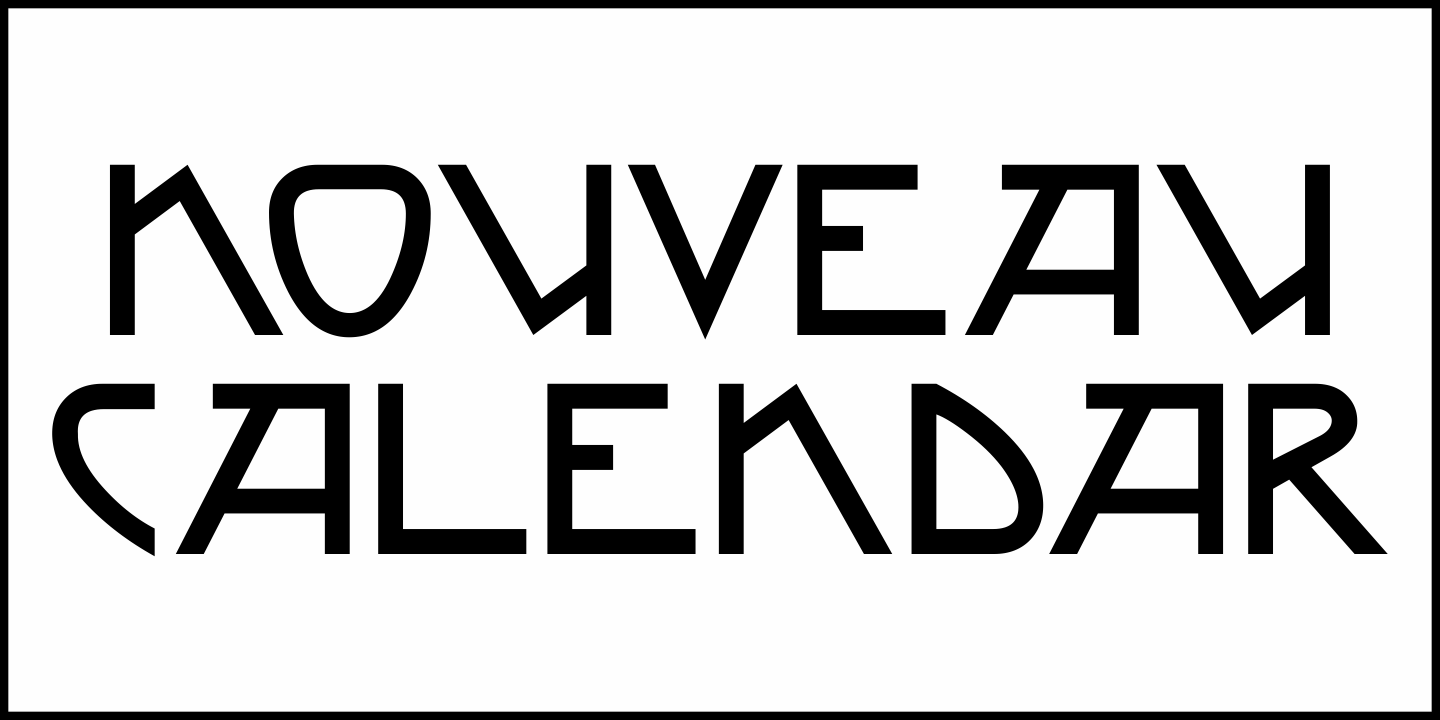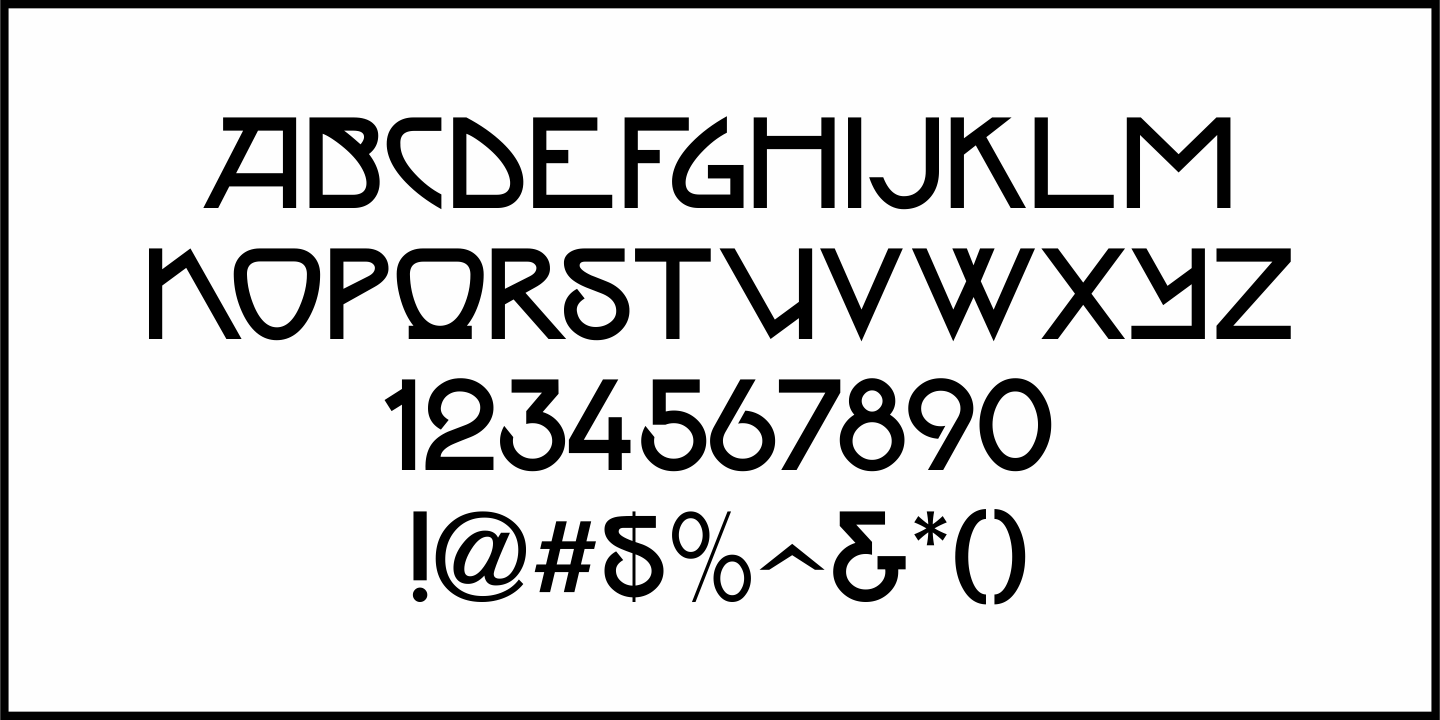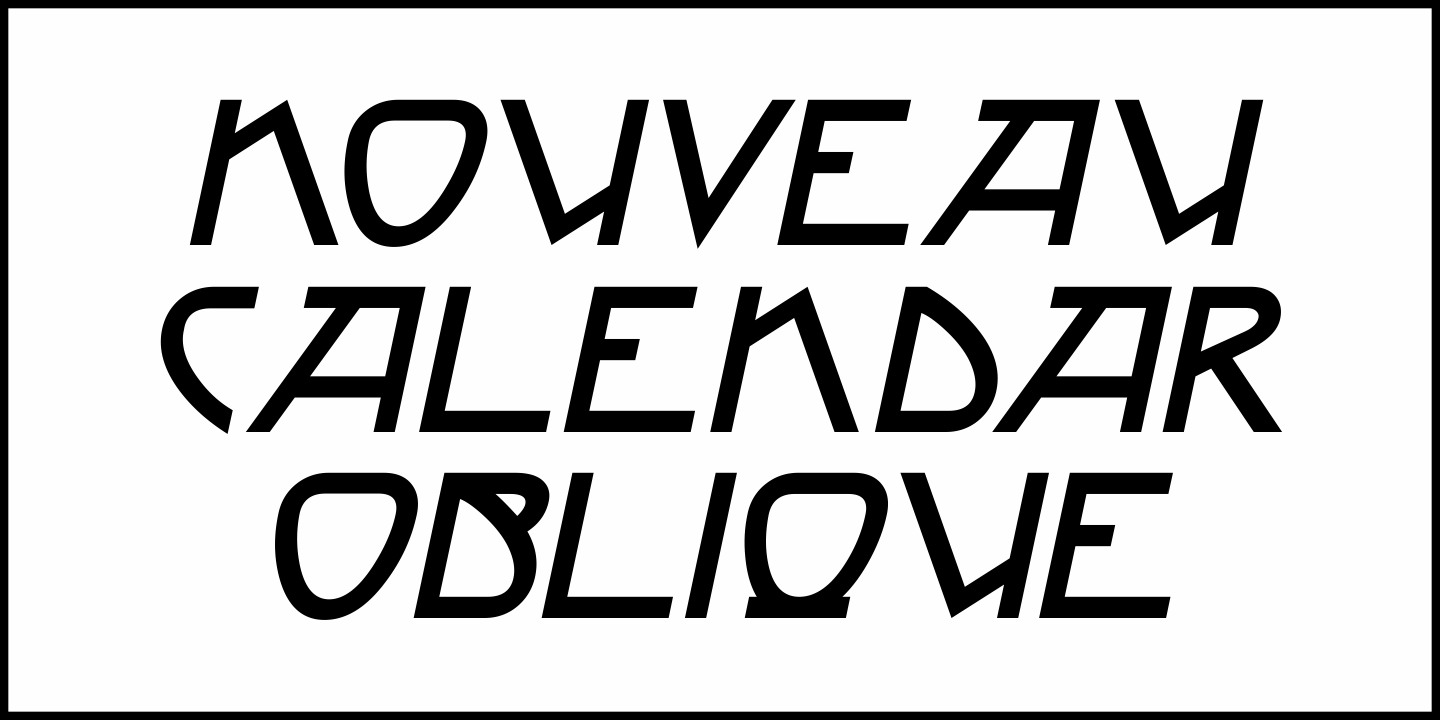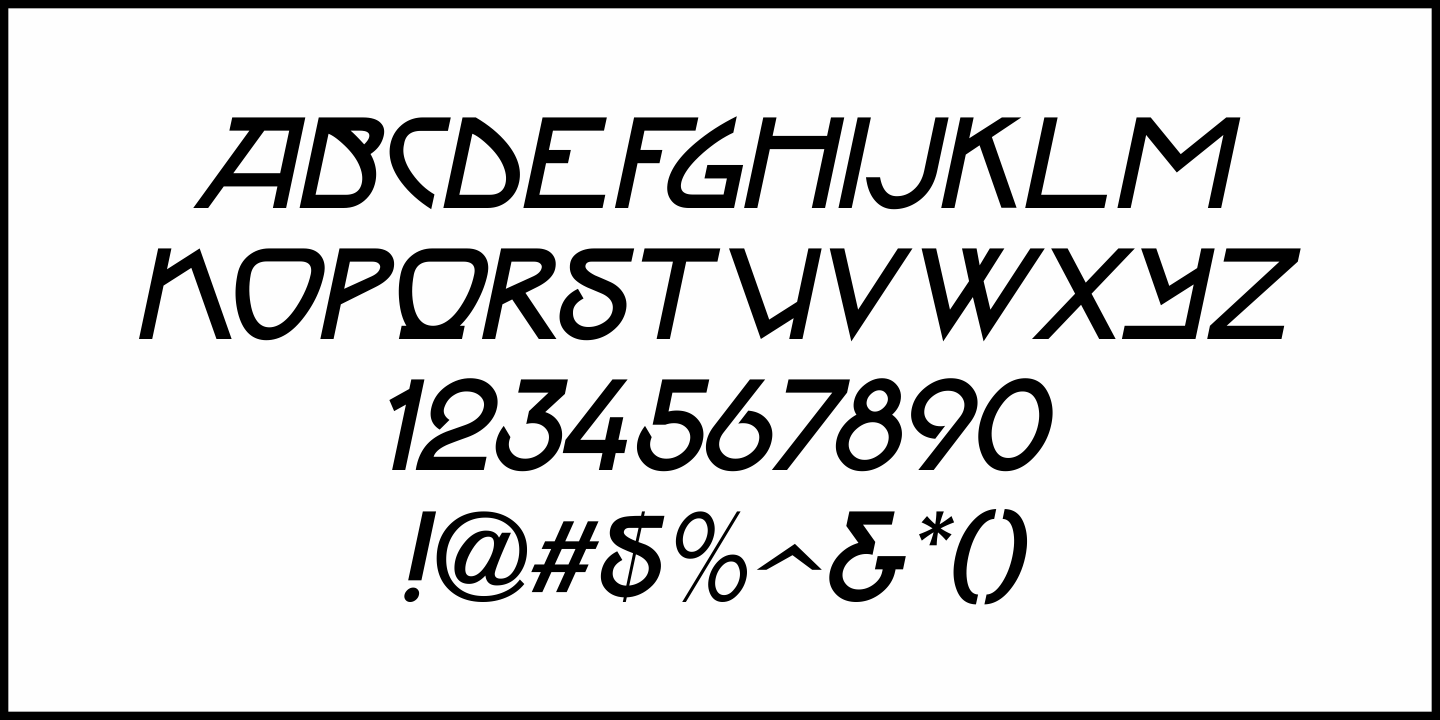
Nouveau Calendar
Inspired by the lettering on Koloman Moser’s poster design for Fromme’s Calendar (circa 1912), Nouveau Calendar JNL is available in both regular and oblique versions.
According to Wikipedia:
“Koloman Moser (30 March 1868 – 18 October 1918) was an Austrian artist who exerted considerable influence on twentieth-century graphic art and one of the foremost artists of the Vienna Secession movement and a co-founder of Wiener Werkstätte.
Moser designed a wide array of art works, including books and graphic works from postage stamps to magazine vignettes; fashion; stained glass windows, porcelains and ceramics, blown glass, tableware, silver, jewelry, and furniture.”